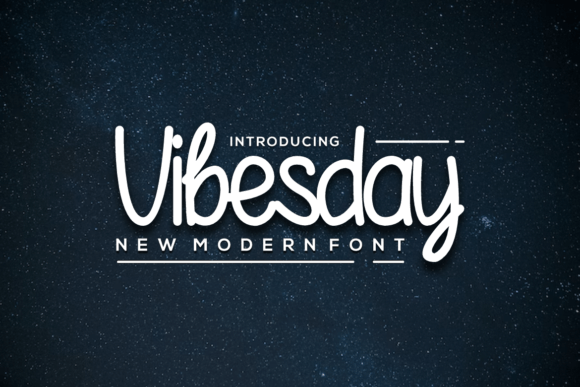
Introducing Vibesday Font: The Enchanting Script Font That Will Make Your Designs Sing
Step into the world of captivating typography with Vibesday Font, a mesmerizing script font that exudes style and casual elegance. Crafted with meticulous attention to detail by the talented prayoga_std, Vibesday is not just a font; it's an artistic expression waiting to be unleashed.
With its enchanting curves and graceful strokes, Vibesday Font possesses a unique charm that sets it apart from the ordinary. Whether you're a seasoned designer or a creative enthusiast, Vibesday will elevate your projects to new heights of visual appeal.
Unleash Your Creativity with Endless Possibilities
With Vibesday Font at your disposal, the possibilities are endless. Create stunning logos that leave a lasting impression, design eye-catching posters that demand attention, or craft personalized invitations that speak to the heart. The versatility of Vibesday Font knows no bounds.
From playful crafts to sophisticated digital designs, from captivating presentations to heartfelt greeting cards, Vibesday Font effortlessly adapts to your creative vision. It's the perfect font for adding a touch of personal flair to any project, no matter the occasion.
A Font That Speaks to Your Soul
Vibesday Font is more than just a collection of characters; it's an extension of your creative spirit. Its unique aesthetic evokes emotions and sets the tone for your designs. Whether you seek to convey joy, elegance, or a touch of nostalgia, Vibesday Font has the power to bring your vision to life.
Experience the Joy of Seamless Design
Using Vibesday Font is an absolute delight. Its smooth flow and effortless readability make it a dream to work with. Say goodbye to frustrating font adjustments and hello to a seamless design experience that keeps you focused on your creative flow.
Make Vibesday Font Your Creative Ally
Join the growing community of designers and creatives who have embraced Vibesday Font as their go-to font. Discover the joy of creating designs that resonate with your audience and leave a lasting impression.